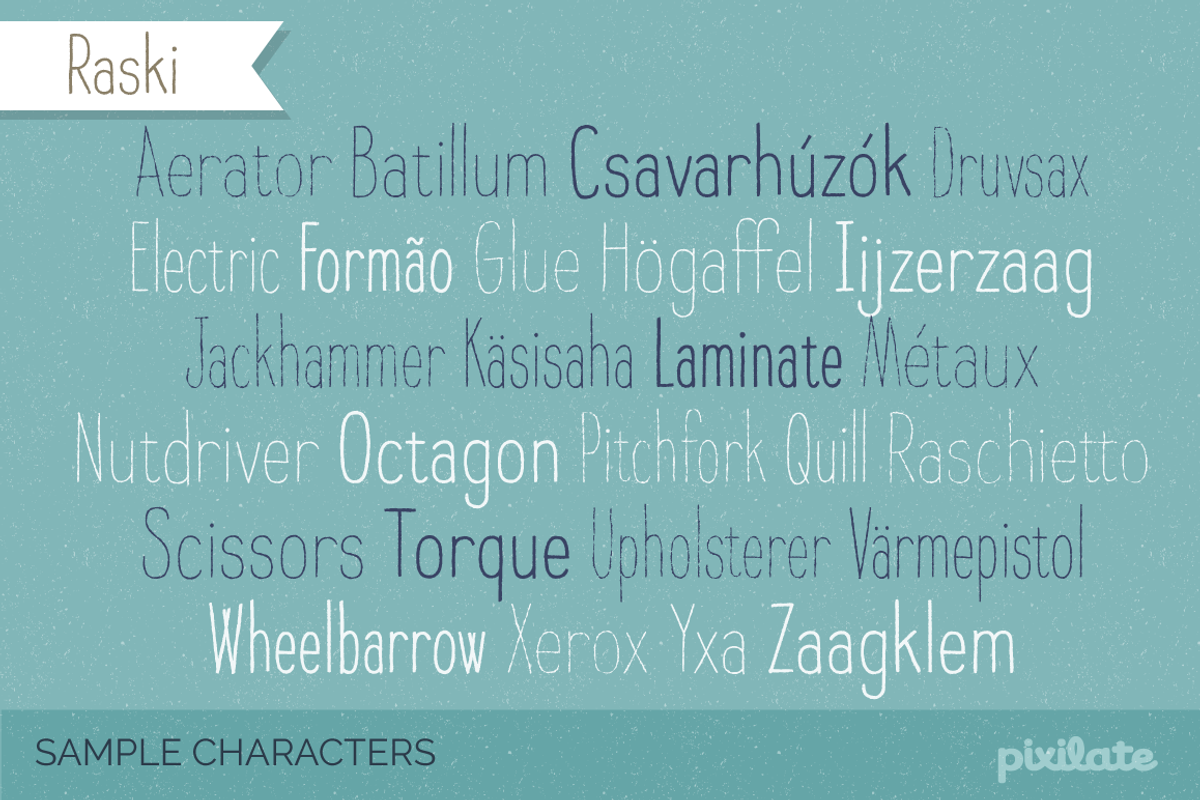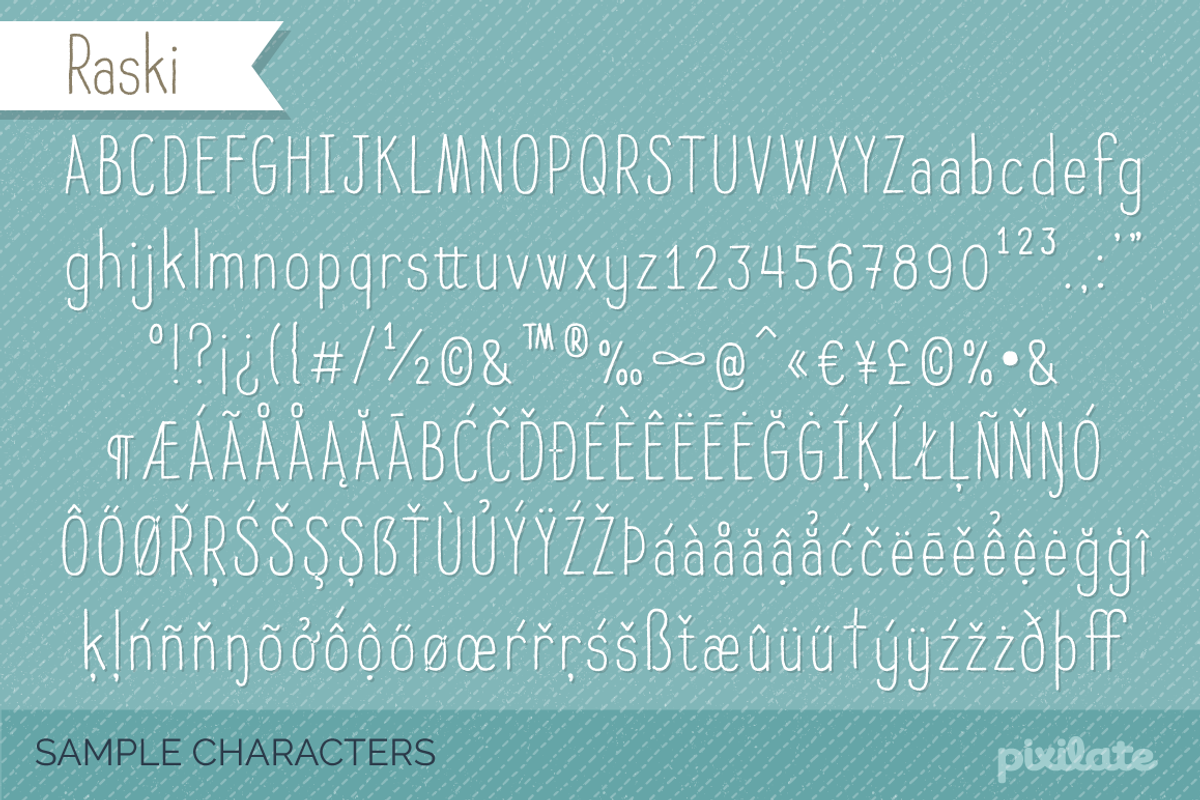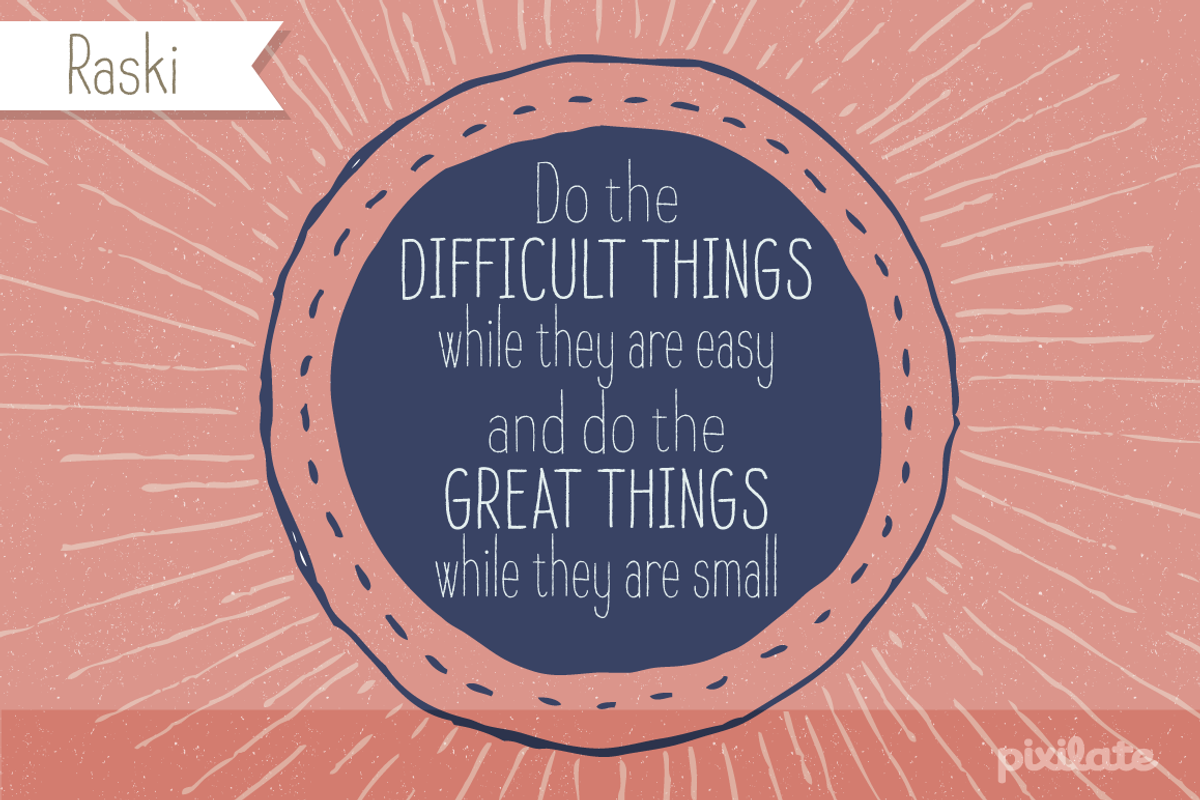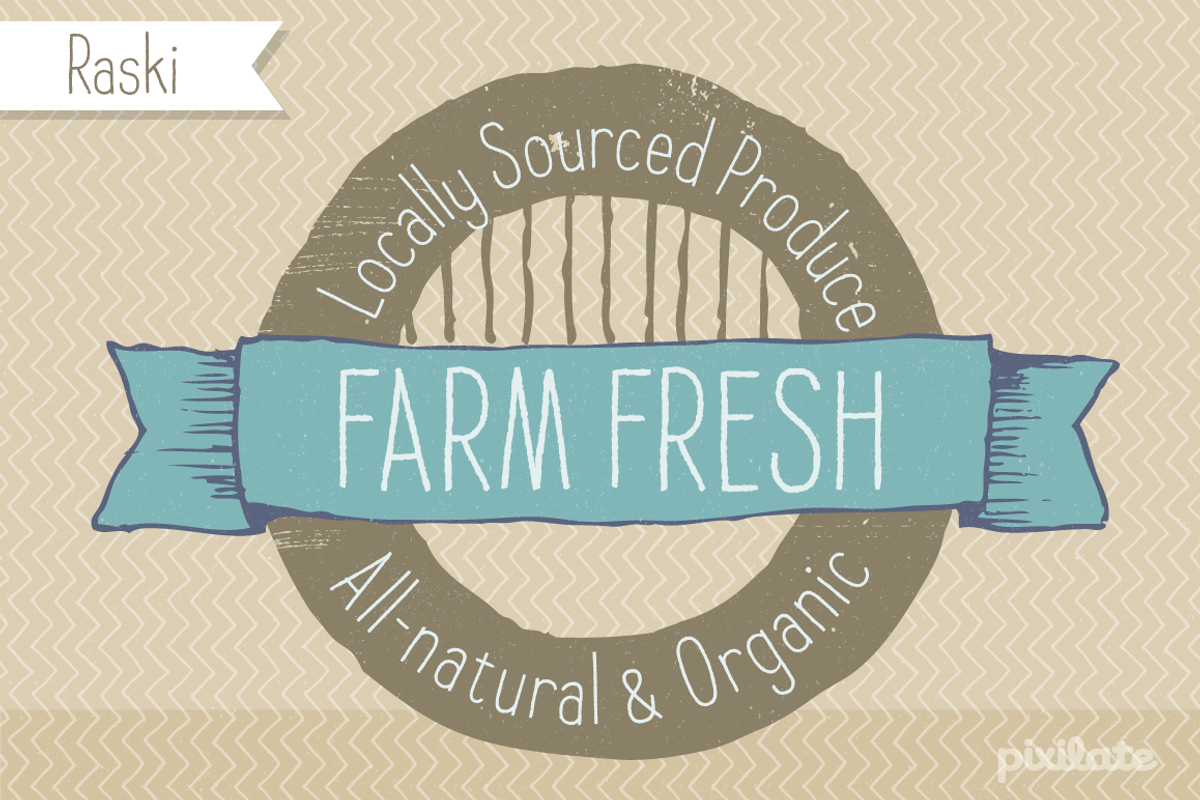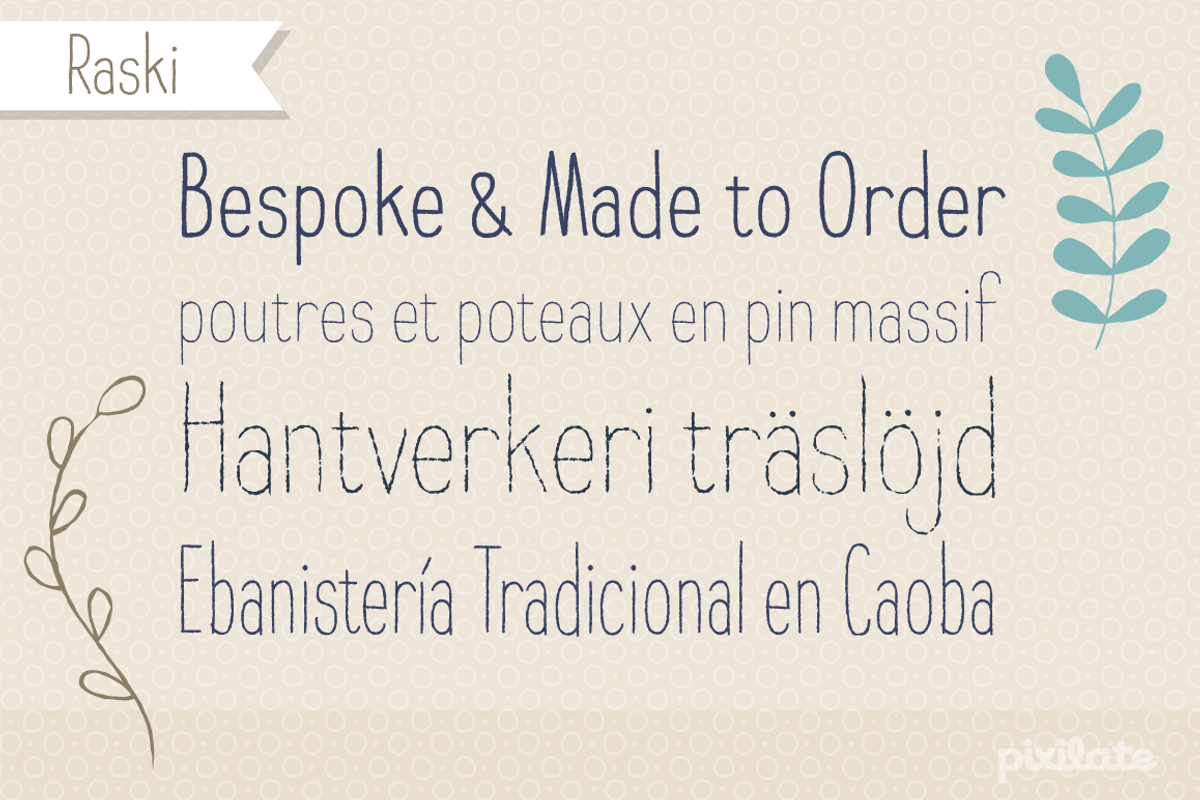
Raski Hand Drawn Font Family
Raski Hand Drawn Font Family by Letradora is a font selected for branding, posters, packaging, typography.
- The family, with 6 styles, has a very complete character set, with support for most european languages, as well as ligatures Show More
Why Raski Hand Drawn Font Family is worth a look
Raski Hand Drawn Font Family by Letradora fits naturally into Branding, posters, packaging, typography.